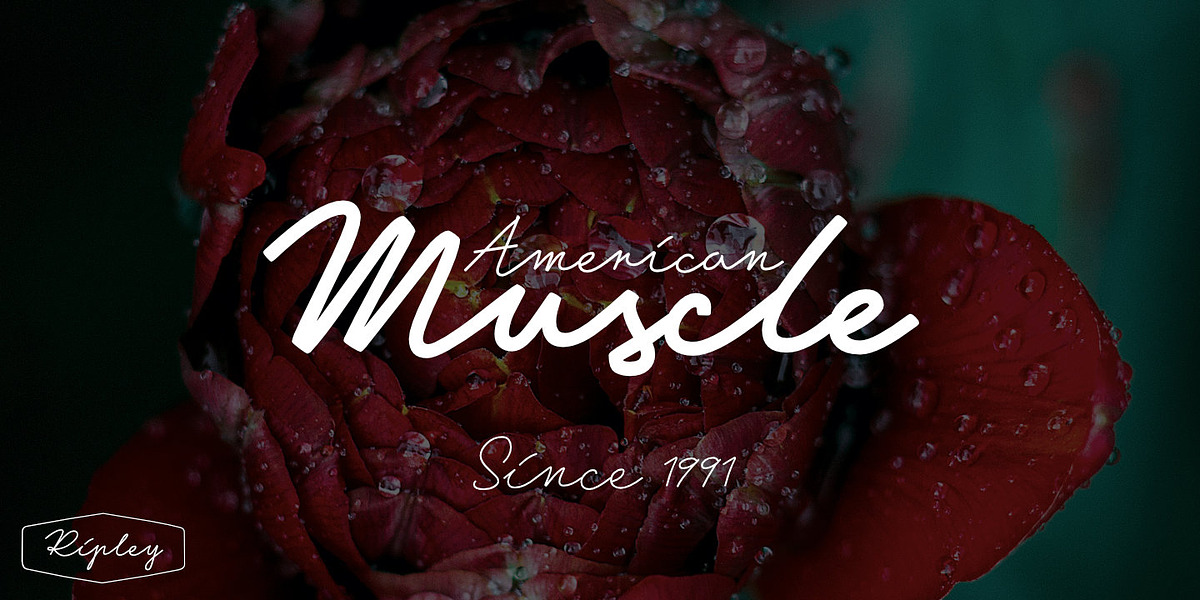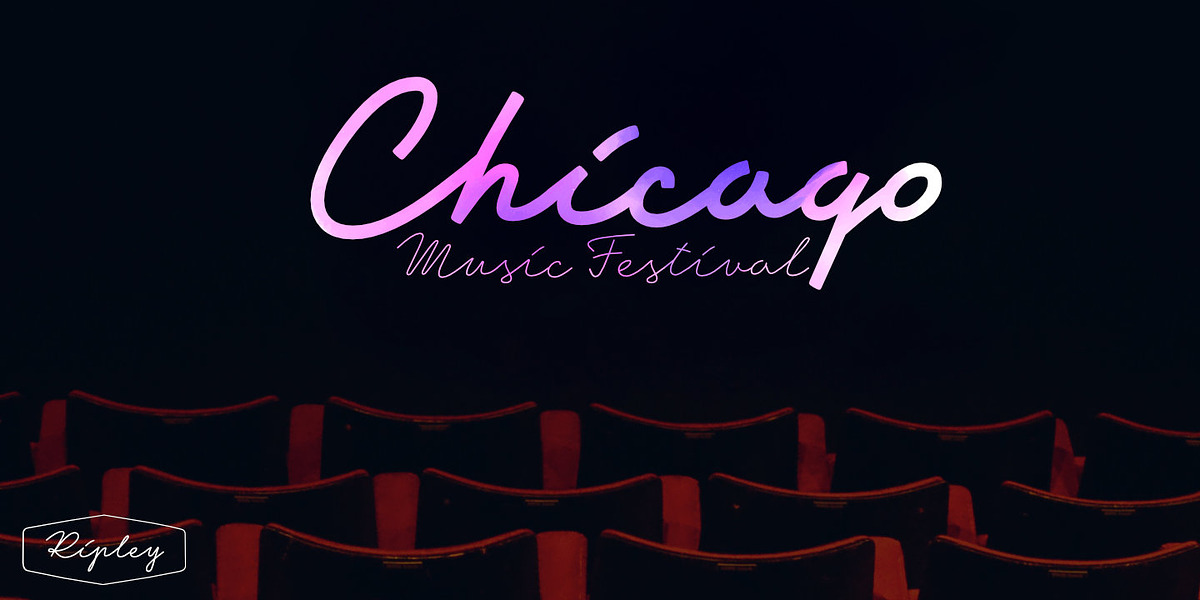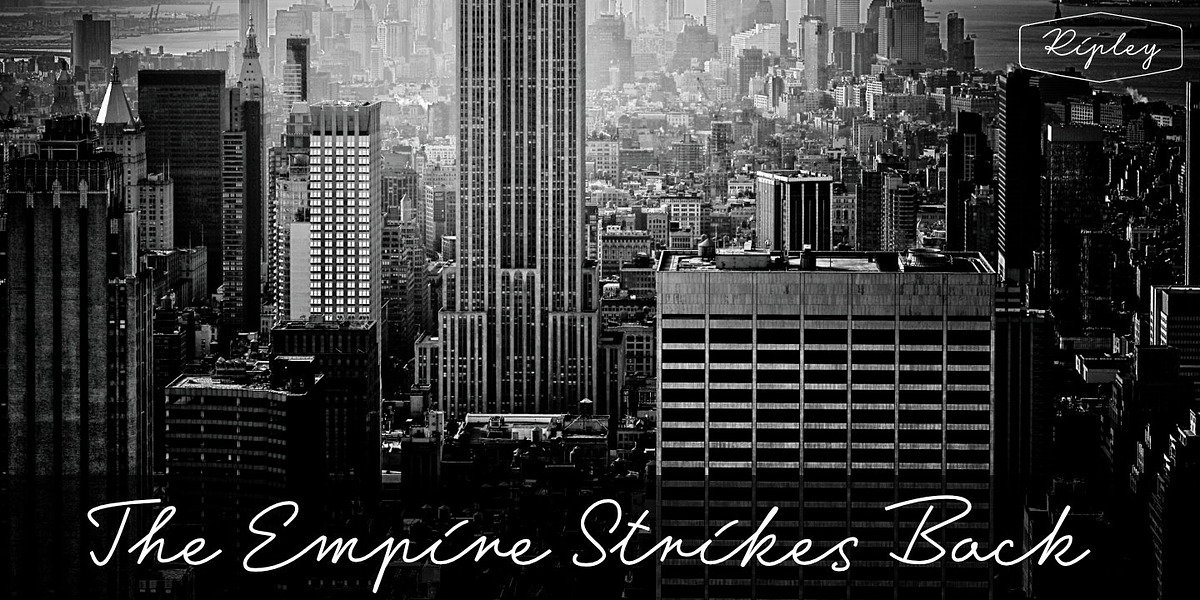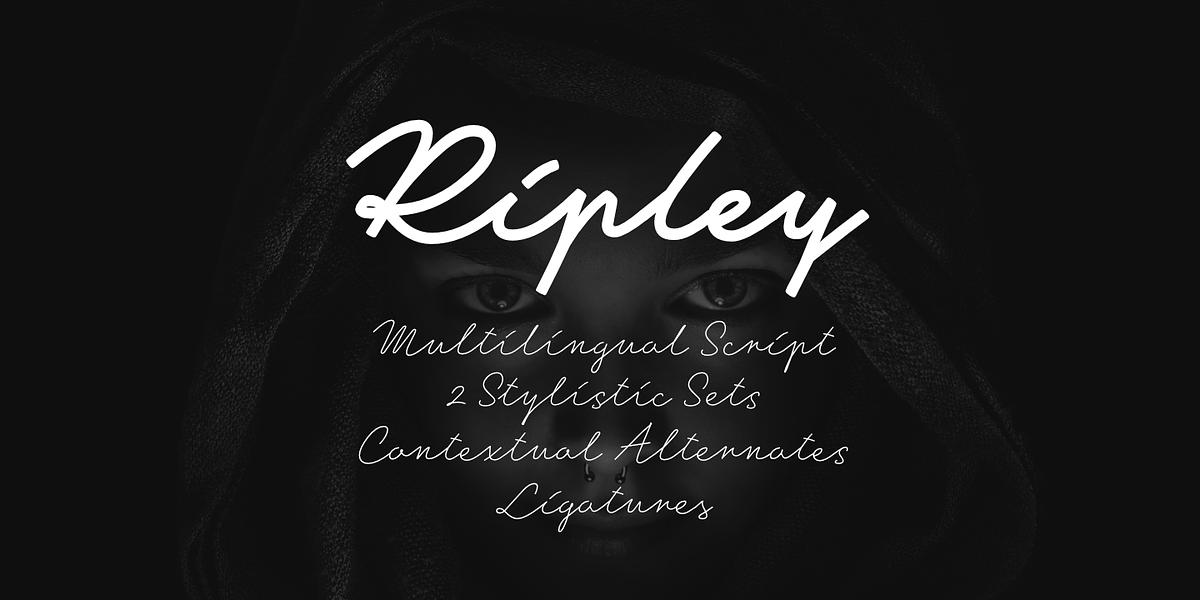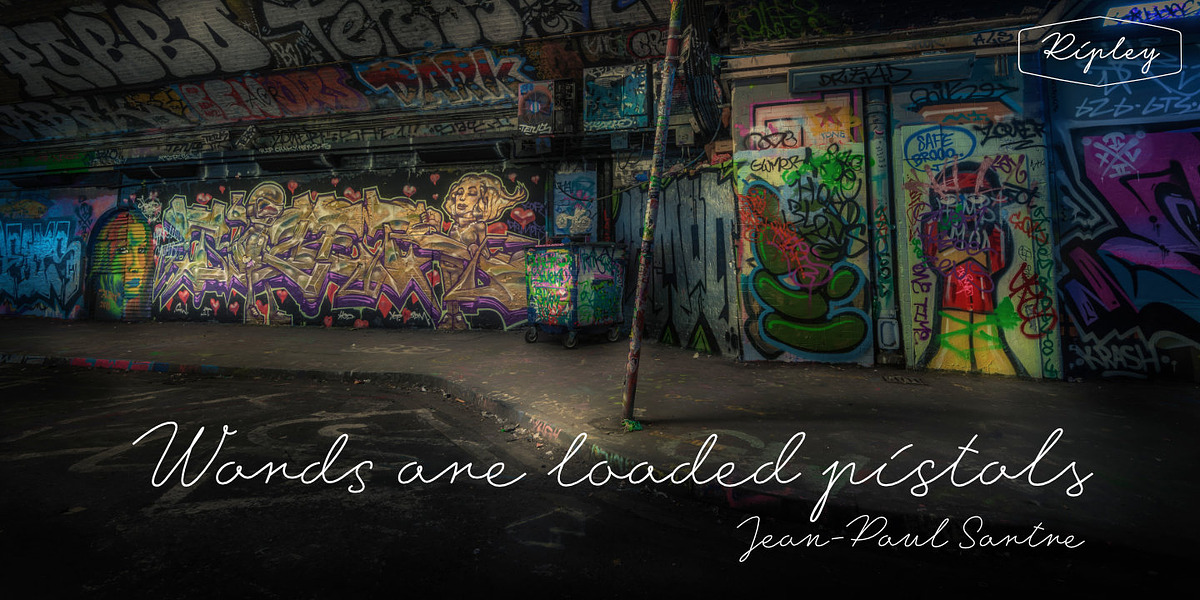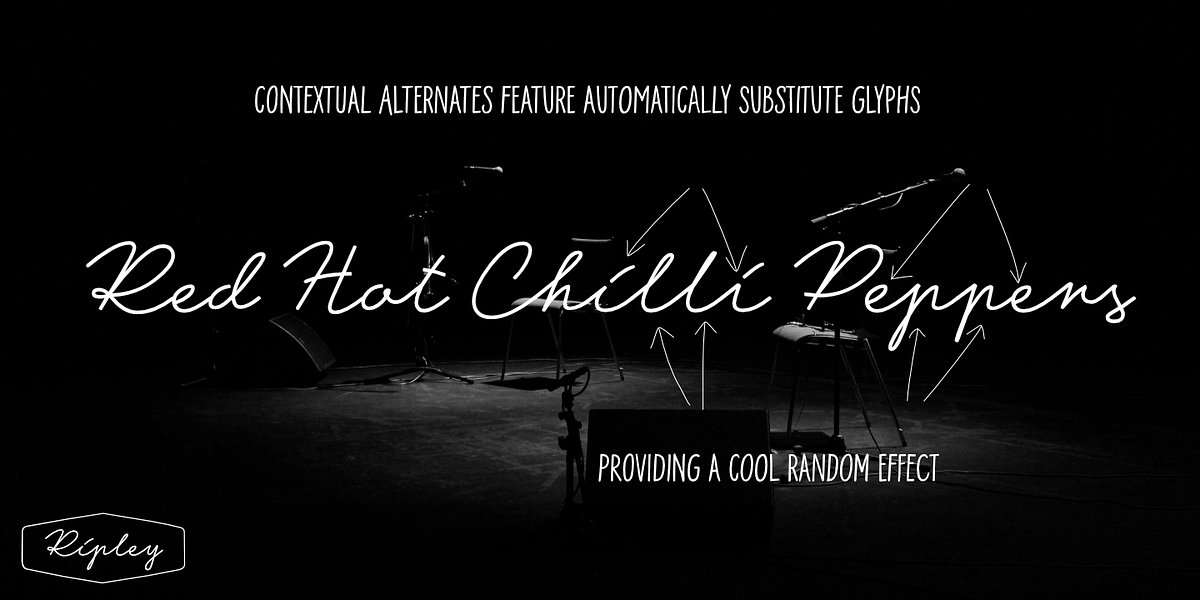
Ripley
Ripley is a hand-drawn script font designed for natural and flowing text. It features three variations for each lowercase letter which are automatically alternated in OpenType-compatible applications, resulting in a handwritten feel.